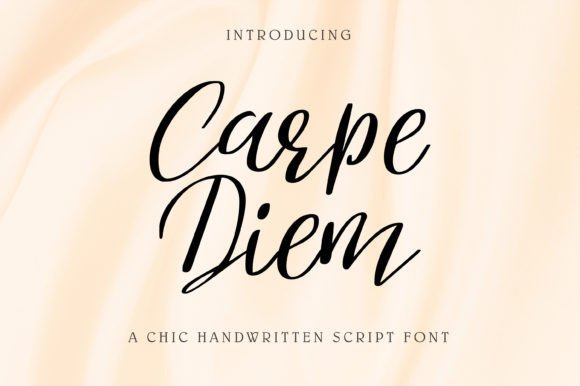
The Moment You Need a Beautiful Font
Do you ever have those moments where you’re browsing through a beautiful wedding invitation or a stunning logo and think to yourself, “Wow, I wish I could create something like that!”? As designers, we’ve all been there. The search for the perfect font to elevate our designs can be a daunting task, but what if we told you that we’ve found one that will take your creations to the next level?
Enter the Carpe Diem Font, a chic modern script font designed to add a touch of elegance to any design project. Whether you’re working on a logo, branding, or wedding invitation, this font is perfect for making a lasting impression. With its beautiful appearance, it’s no wonder why designers love using the Carpe Diem Font to create stunning visuals.
Carpe Diem Font Key Features
- Font Family: Carpe Diem Font is a beautiful, elegant script font designed to evoke a sense of sophistication and luxury.
- Unique Characteristics: The font’s distinctive cursive style, with flowing connections between letters, adds a touch of elegance to any design.
Carpe Diem Font Review
Overall, I’m impressed with the Carpe Diem Font, a beautiful and elegant script font designed for those who appreciate a touch of sophistication in their designs. ✨ Here are some aspects that work well:
- Unique and elegant design: The Carpe Diem Font features a beautiful, handwritten style that adds a touch of class to any design project.
- Great for branding and invitations: The font’s elegant design makes it perfect for creating eye-catching branding materials and invitations.
- Not ideal for large body text: The font’s elegant design may not be suitable for large body text, as it may be difficult to read.
Overall, I would recommend the Carpe Diem Font for designers looking for a unique and elegant script font for their branding and invitation designs. While it has some limitations, its beautiful design and high-quality font files make it a great addition to any designer’s toolkit.
Alternatives to Carpe Diem Font for Designers